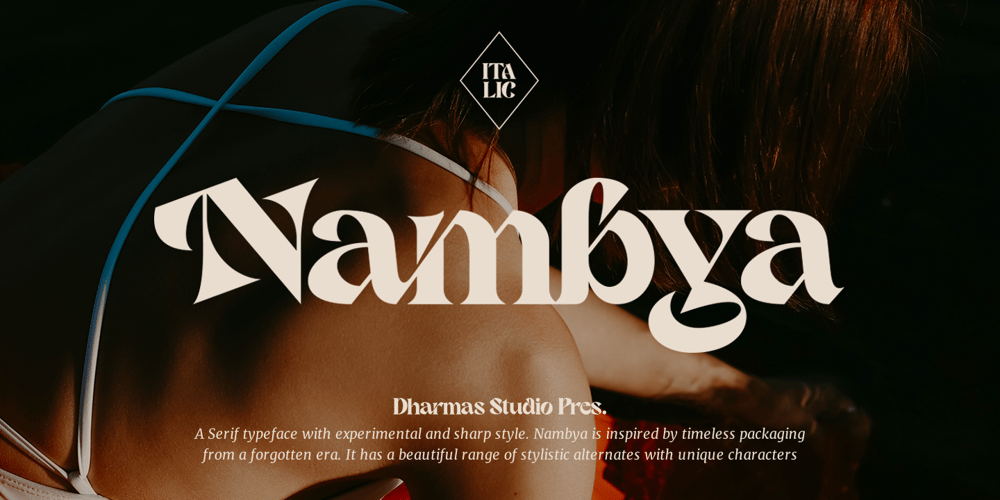
Nambya Font Family was designed by Ahmad Jamaludin and published by Ahmad Jamaludin. Nambya contains 2 styles and family package options. Introducing new sharp style font, Nambya!Nambya – A serif typeface with an experimental and sharp style. Nambya is inspired by timeless packaging from a forgotten era. It has a beautiful range of stylistic alternates with unique characters.Nambya – fearless and chic typeface perfect for big headlines for both print and web. It comes with Italic style, unique lower and uppercase plus numbers, punctuation & multilingual lettersFile Included: Unique letterforms Works on PC & Mac Simple Installations Accessible in Adobe Illustrator, Adobe Photoshop, Microsoft Word even work on Canva! PUA Encoded Characters Fully accessible without additional design software. Come and say hello over on Instagram! https://www.instagram.com/dharmas.studio/Dharmas Studio